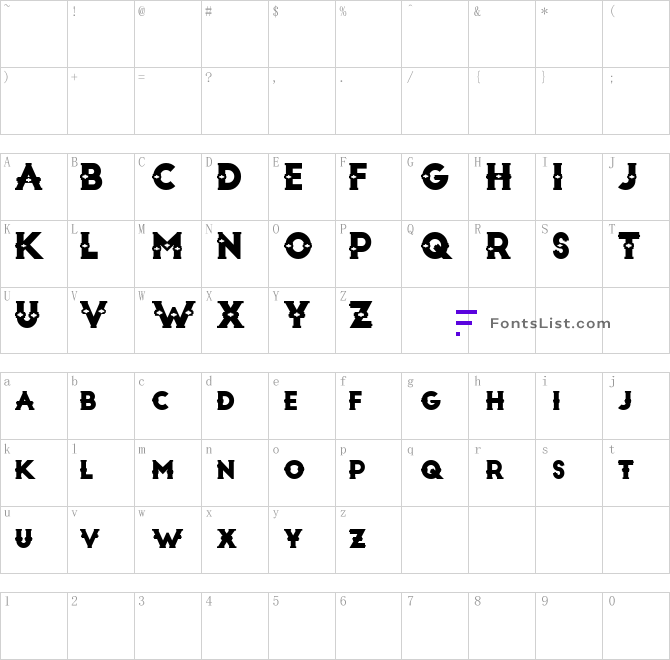
- Font Name:Artesania Display
Artesania-Display.ttf is a very beautiful artistic font, Artesania-Display.ttf is widely used in the design and printing of various books and pictures,Artesania-Display.ttf has a strong visual impact,Artesania-Display.ttf is a commonly used font in newspapers, magazines and books, and is used in posters, e-commerce Poster design, store design, logo design, font design and other fields.Artesania-Display.